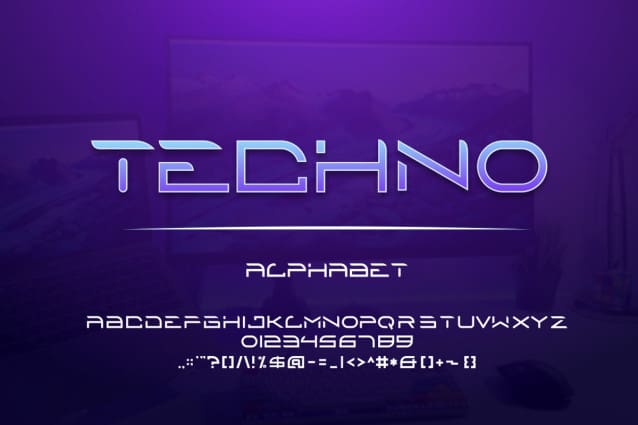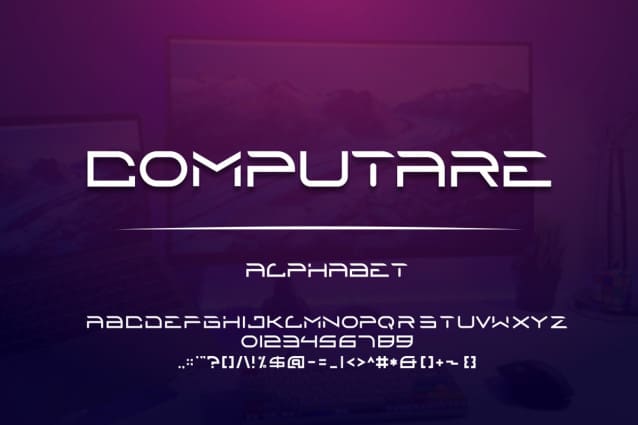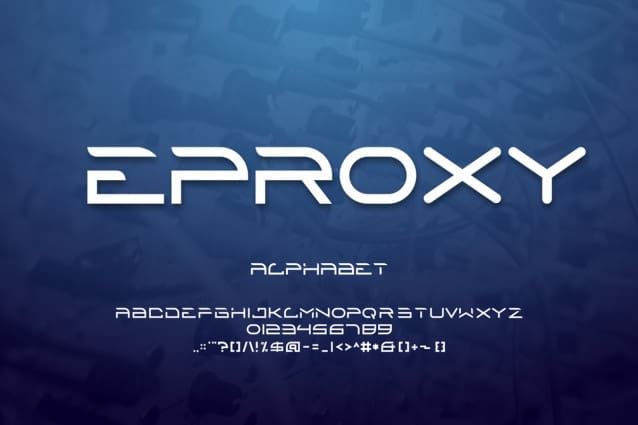
Eproxy Techno Font
Eproxy Techno Font – Modern Font is a bold and authentic display font. The font is suitable for any branding project like logo, t-shirt printing, esport, and many more. outstanding in a wide range of contexts.